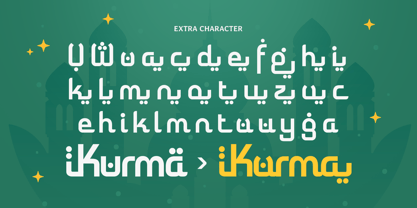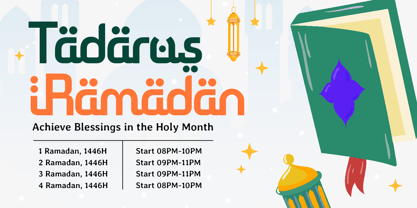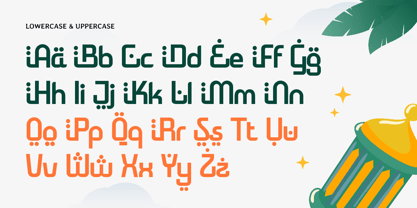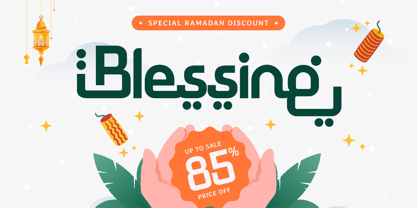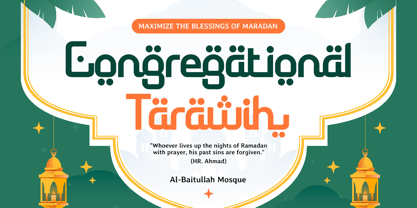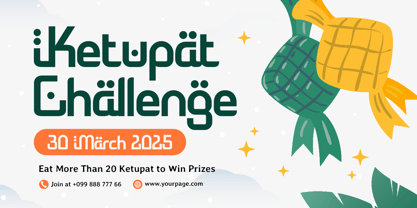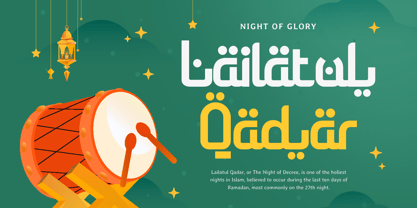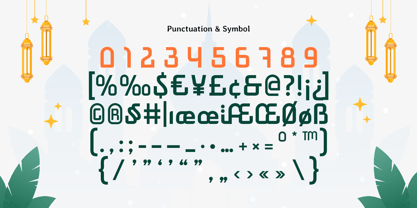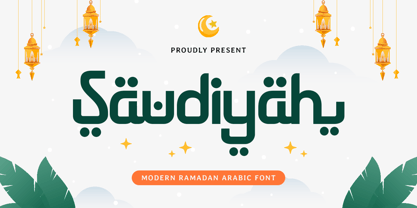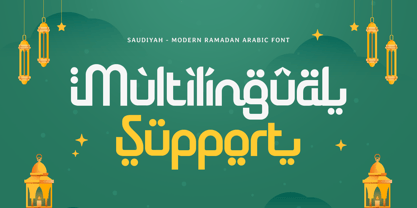
Saudiyah
von Sensatype Studio
Die Schriftfamilie Saudiyah wurde von Zamroni Hamzah entworfen und von Sensatype Studio veröffentlicht. Saudiyah enthält 1 Stile. Mehr über diese Familie
Saudiyah - Modern Ramadan Arabic Font
Saudiyah is a modern Arabic font crafted to enhance Ramadan-themed designs with a touch of sophistication and cultural charm. With its clean and versatile design, Saudiyah is perfect for branding, promotional materials, and social media posts that aim to capture the essence of Ramadan celebrations.
Drawing inspiration from the rich traditions of Arabic calligraphy, Saudiyah delivers a contemporary twist with its modern structure. Whether you're creating event invitations, product packaging, or digital banners, Saudiyah ensures your message resonates with style and grace. This font's versatility makes it an excellent choice for projects demanding a unique and luxurious Arabic aesthetic.
Let Saudiyah elevate your designs, offering a perfect harmony of modernity and tradition. Its refined style and distinctive characters bring a premium touch to both digital and print media, ensuring your Ramadan-themed creations stand out beautifully.
Saudiyah Modern Ramadan Arabic Font Features:
• Elegant and Refined Arabic Characters
• Perfect for Ramadan and Festive Designs
• Punctuation, Numbers, and Symbols
• Uppercase and Lowercase
• Opentype Features
Designer: Zamroni Hamzah
Foundry: Sensatype Studio